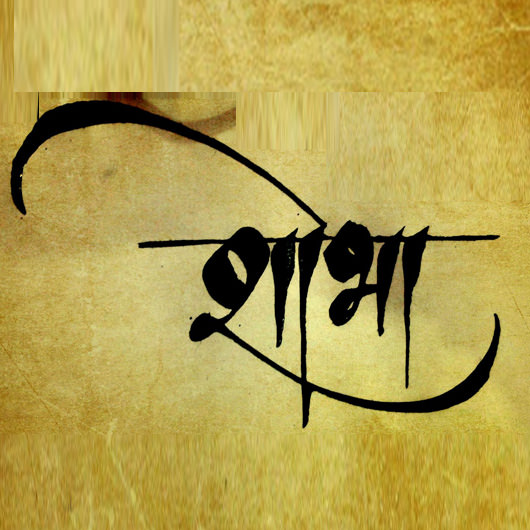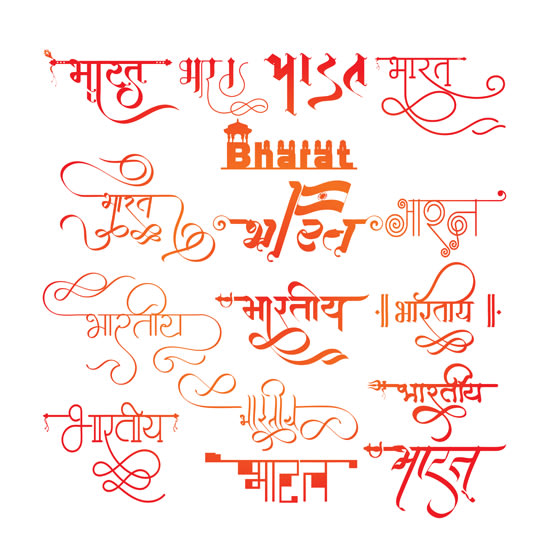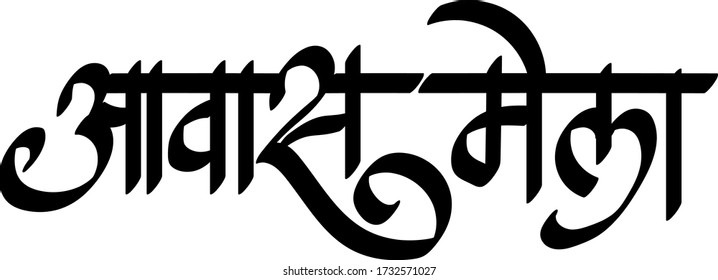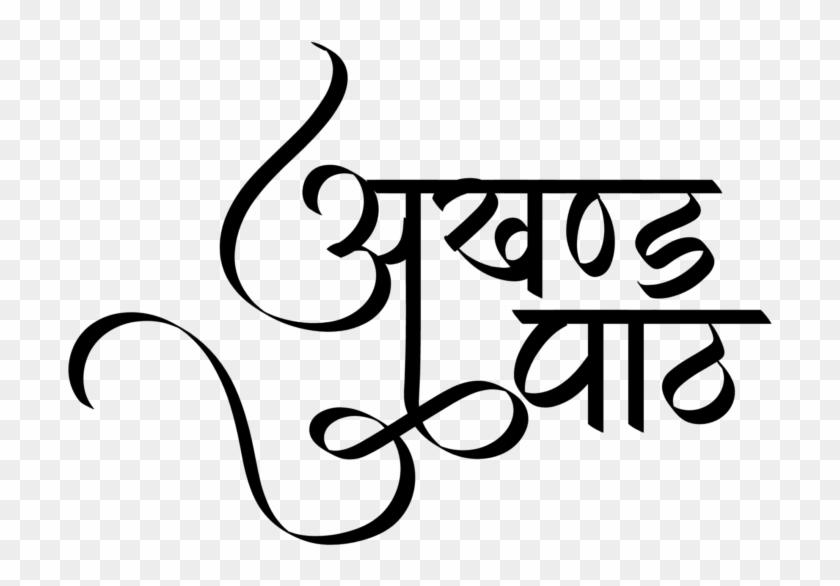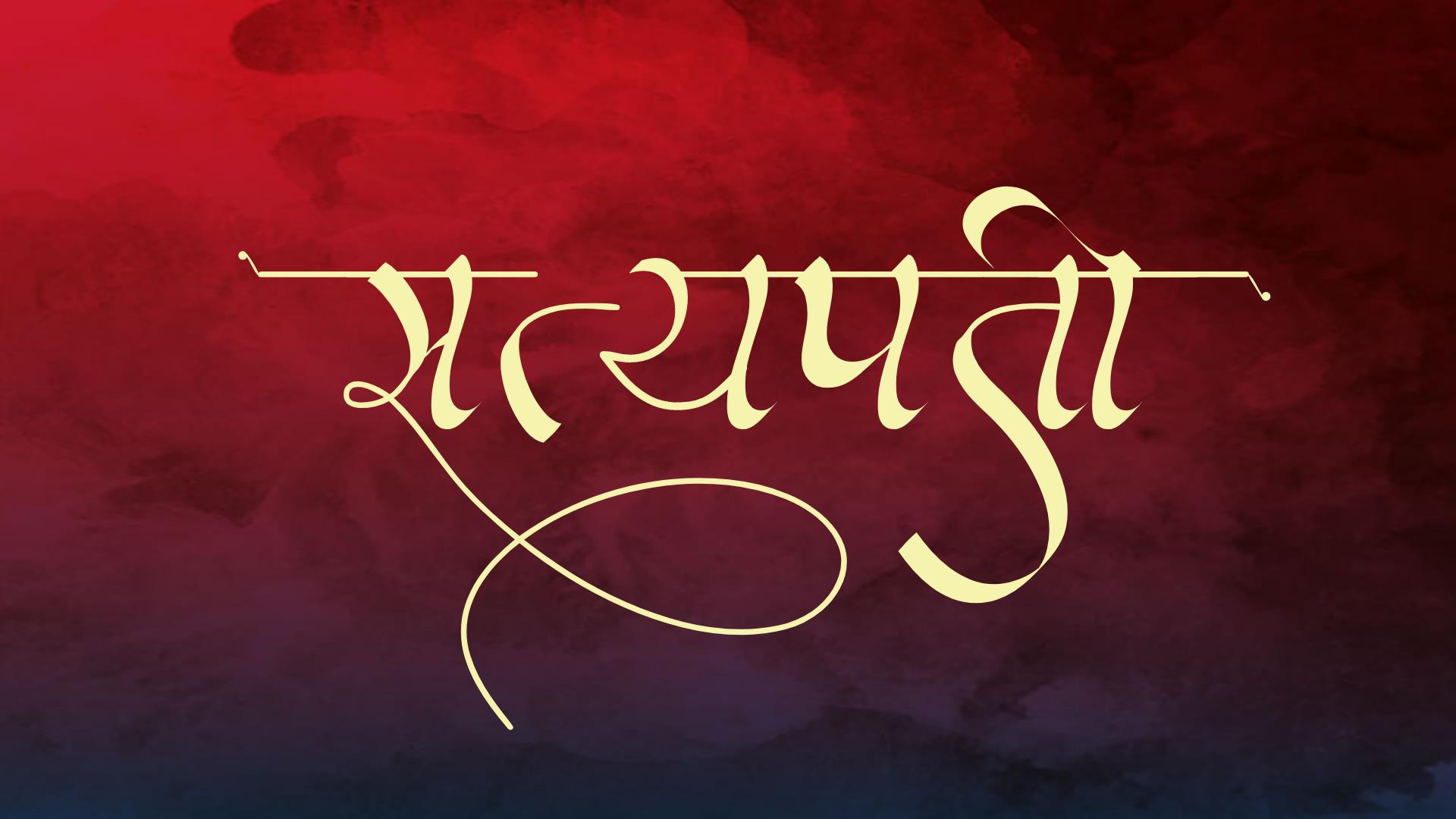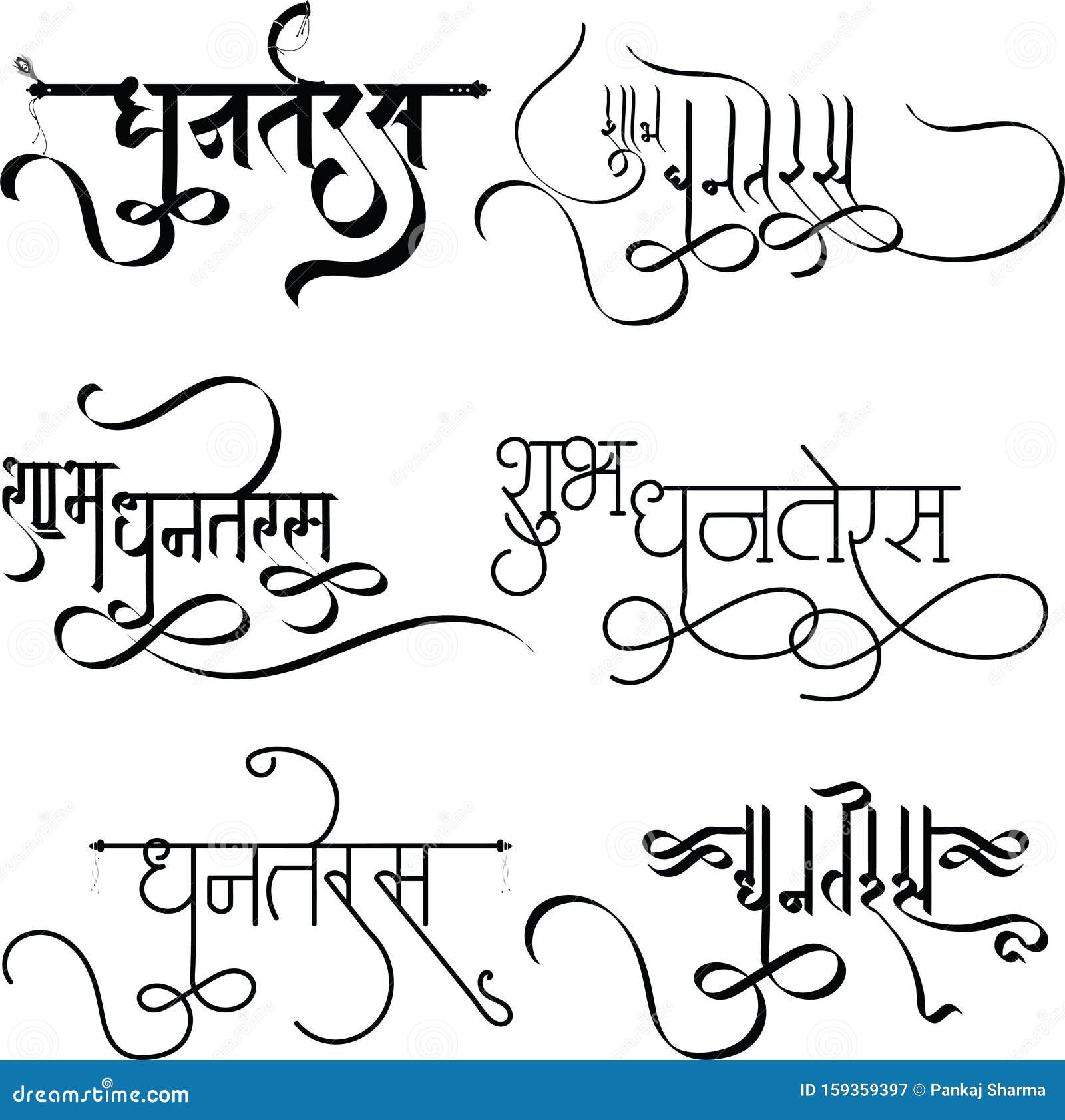
See more ideas about marathi calligraphy art hindi calligraphy. From Devlys to Kruti we offer a wide range of Hindi Fonts.
Indian Language Calligraphy Fonts in cool designs and Alternate designs for a single letter for easy and fast work.
Artistic hindi calligraphy fonts. Try these curated collections. HindiGraphics Offers Hindi fonts and Letters to design Hindi names Logos and wallpapers using best designed Hindi fonts by top graphics designers. Variables suitable for Start Medium and End of the word.
We have seen many calligraphic fonts English but we have got you the 1 st ever HindiMarathi calligraphic ready to use fonts in various styles. Marathi Calligraphy FontCalligraphyWedding Fonts Free DownloadHindi Calligraphy FontsGanpati BappaHindi CalligraphyGanpati Photo HdMarathi Calligraphy. The height of calligraphy was reached in the middle age where monks developed the narrow writing style called gothic allowing more words to fit on a single line as paper was expensive at the time.
We deal in customize hindi calligraphy fonts logos typography etc. Calligraphy is an ancient writing technique using flat edged pens to create artistic lettering using thick and thin lines depending on the direction of the stroke. Alom-Wilom to enhance start and endpoints.
DM us or Visit our website for more info. This font type will help you present your thoughts in a unique artistic manner.
Our Users prefer our fonts for their books magazines and websites. The main sub-styles are traditional calligraphy and modern. Wheel buddha hini caligraphy hindi fonts vector symbols vector namaste in hindi ancient sun vector logo indian craft logo shree hindi concept alphabets in hindi.
Marathi Calligraphy Font Calligraphy Name Krishna Names Krishna Quotes Krishna Drawing Krishna Painting Krishna Leela Radha Krishna Love Flute Drawing. Indias First Regional Language Calligraphy Fonts Software by IndiaFontDownload your free trial IndiaFont Calligraphy Software from below link and experienc. Calligraphy itself is a beauty in fonts.
Calligraphy is an artistic writing style where the pressure is varied to create thick and thin lines all in a single stroke. Its the official language of India English being the other official language. Up to 12 variables for single characters.